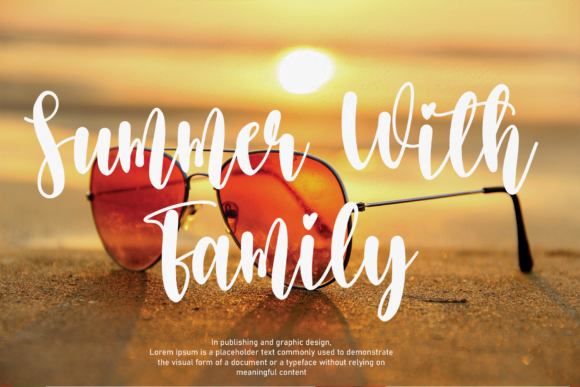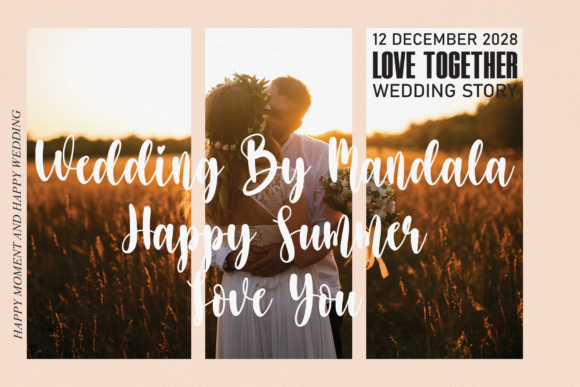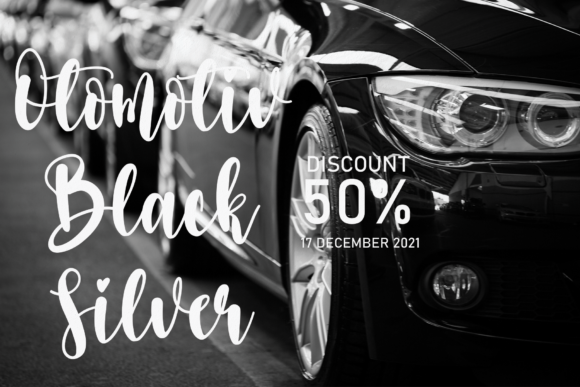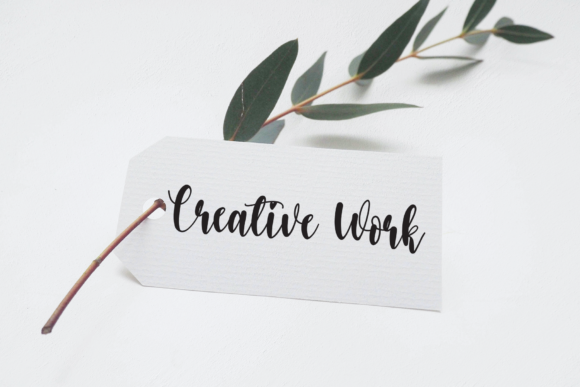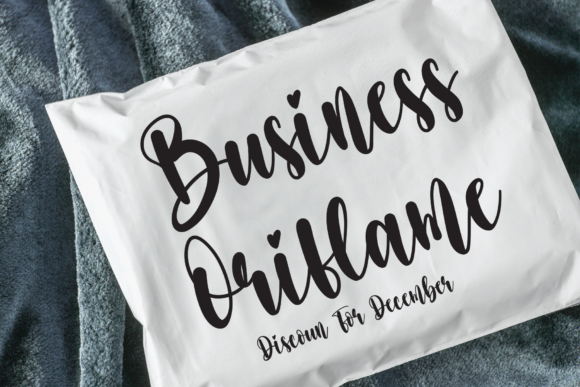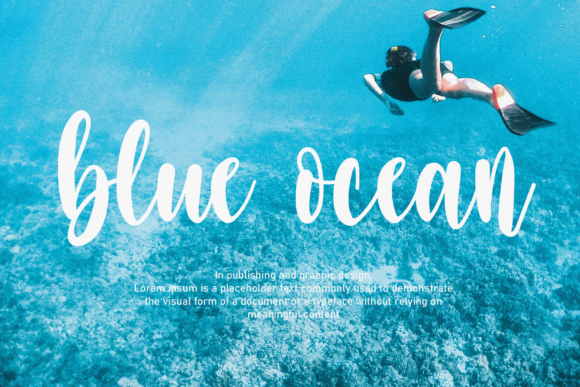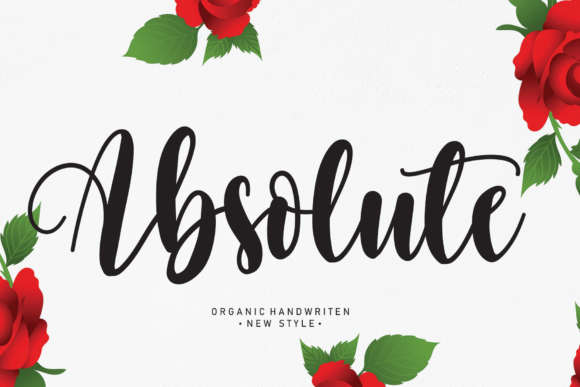
Introducing Absolute Font: Elevate Your Creativity with Elegance
Are you a designer, crafter, or DIY enthusiast looking for a font that can add a touch of magic to your creative projects? Look no further than Absolute Font, a beautiful script font that combines elegance with a whimsical flair. In this article, we’ll explore the features and benefits of Absolute Font, and how it can help you turn your ideas into stunning works of art.
The Story Behind Absolute Font
Absolute Font is a carefully crafted script font, designed to bring a sense of sophistication and refinement to your designs. With its flowing lines and intricate details, this font is perfect for adding a touch of luxury to any project. Whether you’re working on a branding campaign, a DIY craft, or a social media post, Absolute Font is the perfect choice for anyone looking to make a statement.
What Makes Absolute Font Special?
So, what sets Absolute Font apart from other fonts on the market? Here are just a few of its standout features:
- Elegant and Refined: Absolute Font boasts a sophisticated, high-end feel that’s perfect for designs that require a touch of luxury.
- Magical and Whimsical: With its flowing lines and intricate details, this font has a playful, whimsical quality that’s sure to captivate your audience.
- Versatile: Absolute Font is perfect for a wide range of applications, from Instagram posts and DIY projects to branding campaigns and more.
- Easy to Use: This font is incredibly easy to use, making it perfect for designers and crafters of all skill levels.
Using Absolute Font for Instagram and Social Media
In today’s digital age, social media is an essential platform for designers, crafters, and DIY enthusiasts to showcase their work. With Absolute Font, you can create stunning Instagram posts, Facebook graphics, and more that are sure to grab your audience’s attention.
Here are a few ideas for using Absolute Font on social media:
- Quotes and Inspiration: Use Absolute Font to create inspiring quotes and sayings that will resonate with your followers.
- Product Showcase: Add a touch of elegance to your product showcases with Absolute Font, highlighting the features and benefits of your products.
- Behind-the-Scenes: Use this font to create behind-the-scenes content, such as tutorials, sneak peeks, and more.
Using Absolute Font for DIY Projects
Absolute Font is not just limited to digital applications – it’s also perfect for DIY projects, such as crafting, scrapbooking, and more. With its elegant and refined feel, this font can add a touch of sophistication to any DIY project.
Here are a few ideas for using Absolute Font in your DIY projects:
- Calligraphy: Use Absolute Font as a guide for creating beautiful calligraphy pieces, perfect for adding a personal touch to your gifts, cards, and more.
- Scrapbooking: Add a touch of elegance to your scrapbooking projects with Absolute Font, highlighting memories and special moments.
- Sign-Making: Use this font to create stunning signs, perfect for decorating your home, office, or business.
Tips and Tricks for Getting the Most Out of Absolute Font
To help you get the most out of Absolute Font, here are a few tips and tricks to keep in mind:
- Experiment with Colors: Don’t be afraid to experiment with different colors and color combinations to find the perfect look for your design.
- Play with Sizes: Absolute Font looks great in a variety of sizes, so don’t be afraid to experiment with different font sizes to find the perfect fit for your project.
- Mix and Match: Try pairing Absolute Font with other fonts and design elements to create a unique and eye-catching look.
Absolute Font is a truly magical script font that’s perfect for designers, crafters, and DIY enthusiasts looking to add a touch of elegance to their creative projects. With its flowing lines, intricate details, and whimsical flair, this font is sure to turn any idea into a stunning work of art. Whether you’re working on a social media post, a DIY project, or a branding campaign, Absolute Font is the perfect choice for anyone looking to make a statement.